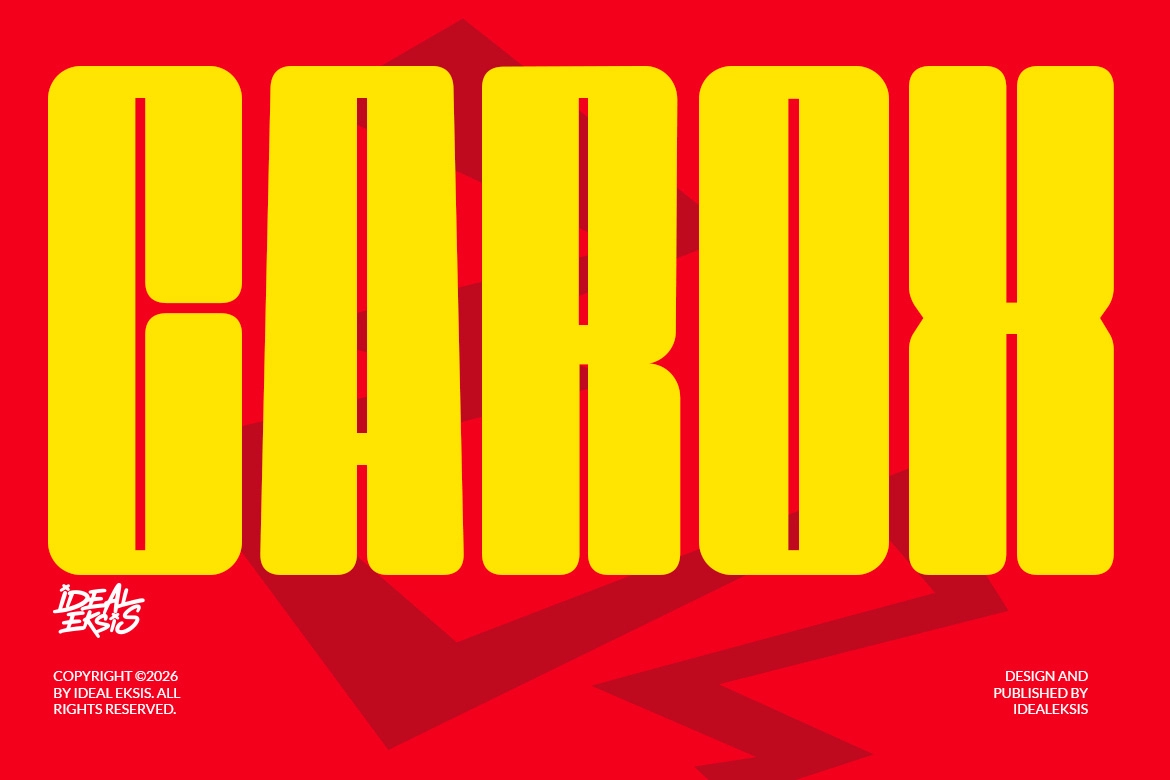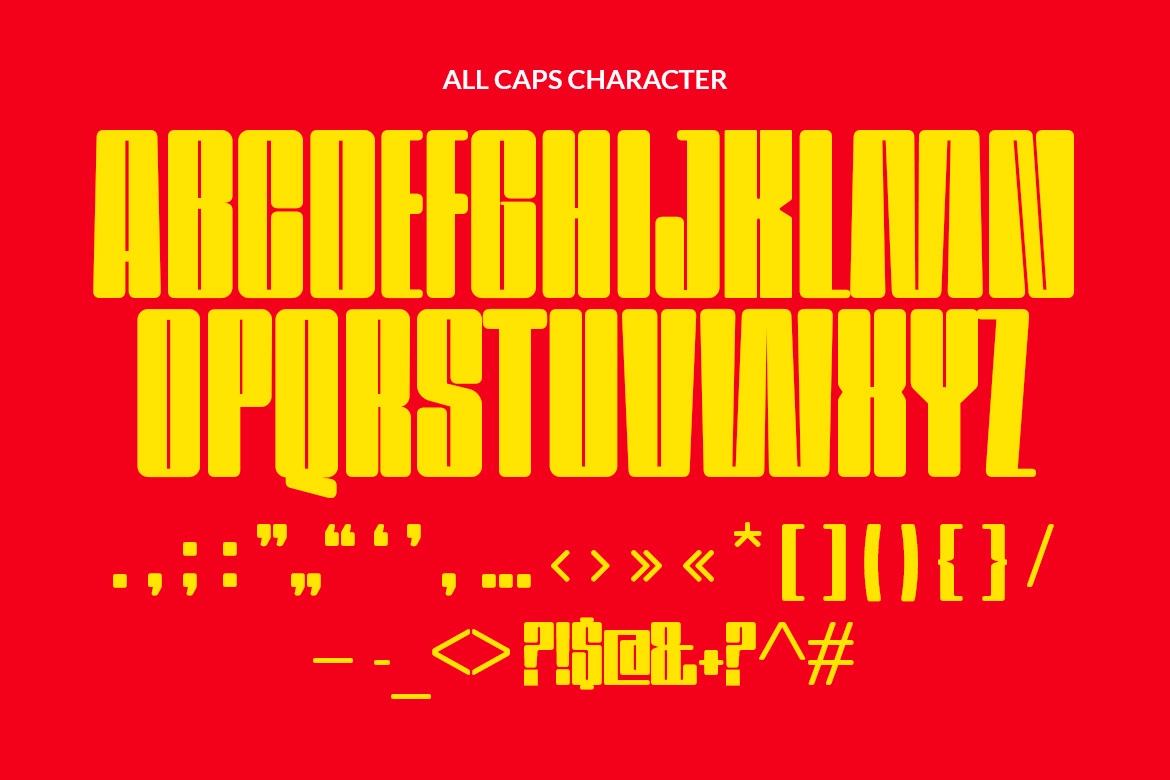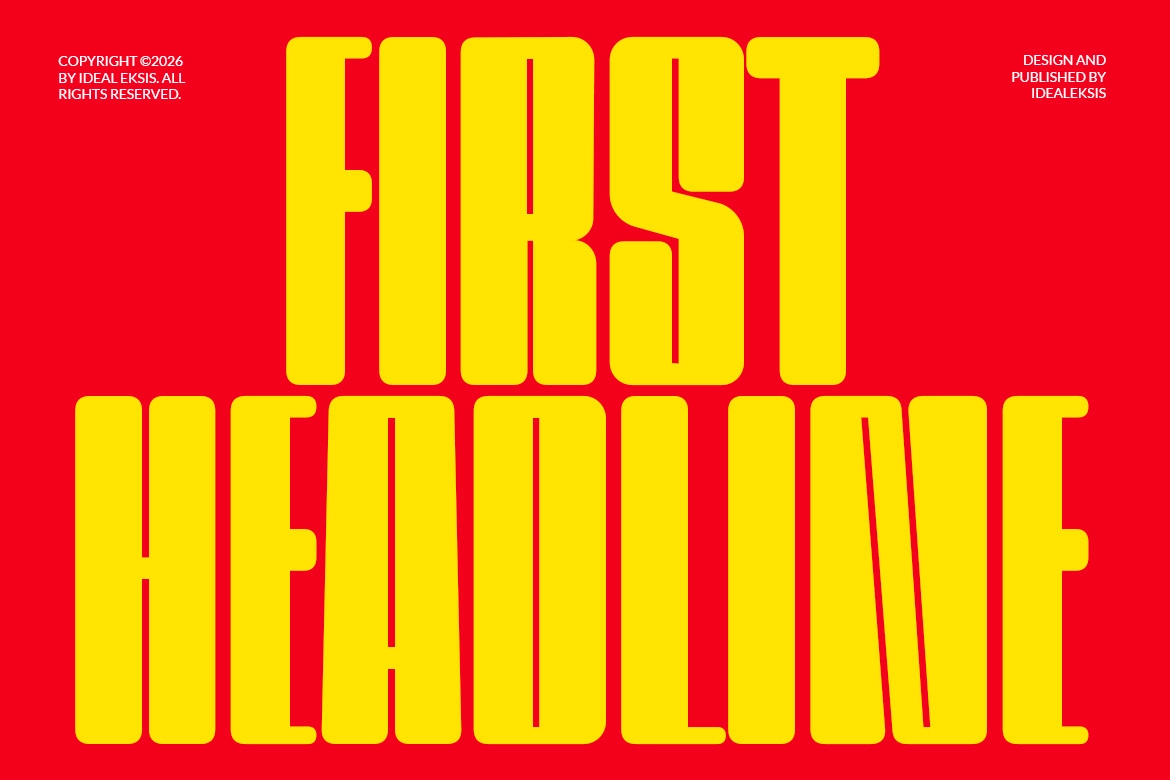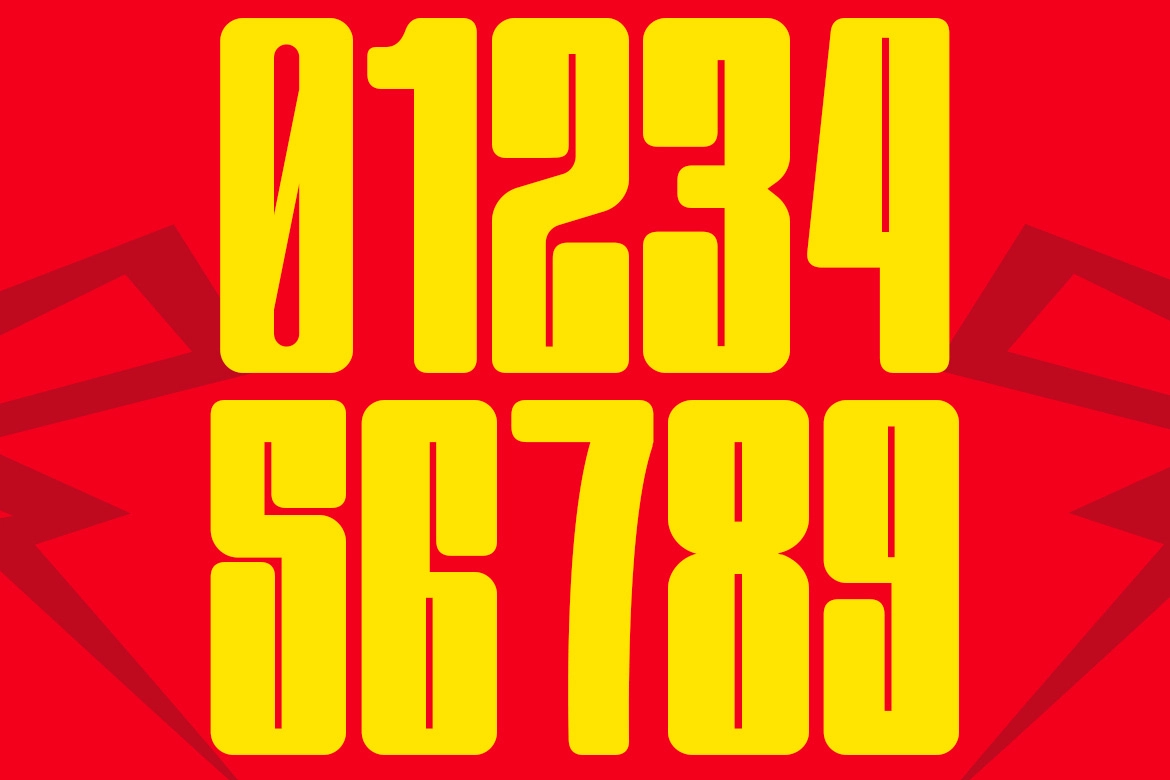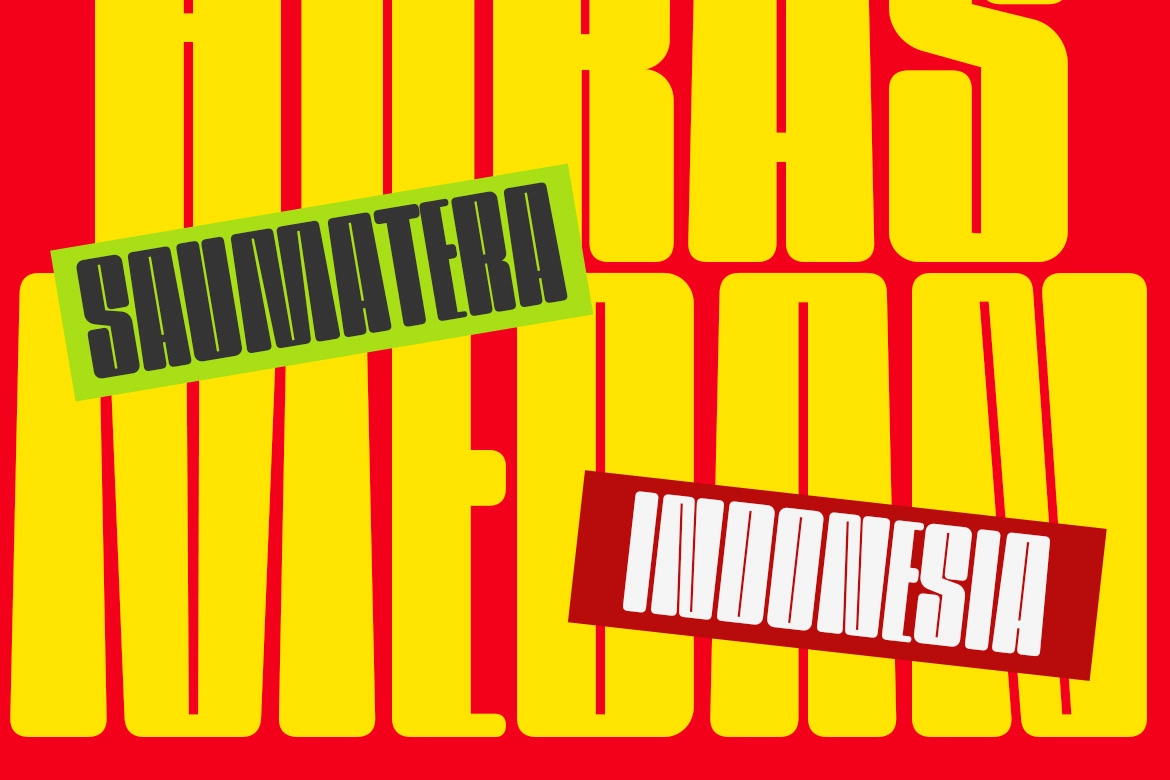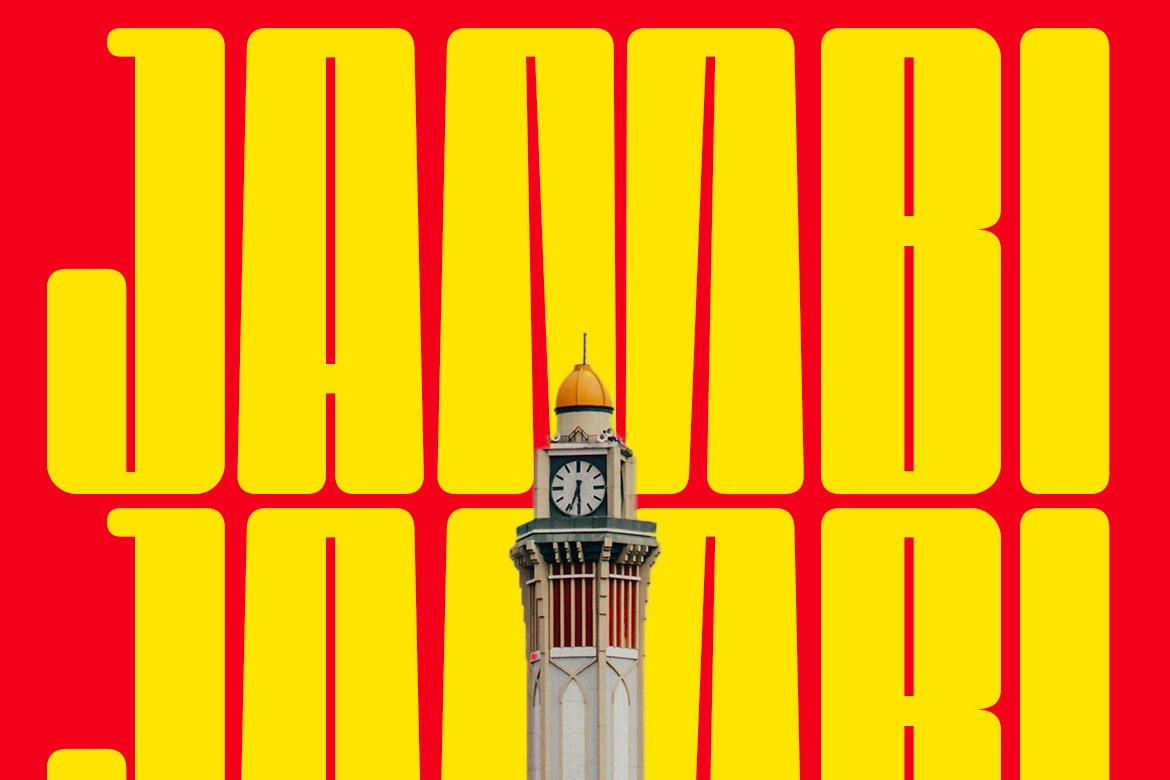
Carox - Rounded Heavy Sans Serif Font
Carox
Carox – Rounded Heavy Sans Serif Font is a bold and compact typeface built for maximum visual impact. Featuring an ultra-condensed structure with thick strokes and softened corners, this rounded heavy sans serif font delivers a powerful presence while maintaining a modern and approachable feel.
Designed for high-energy layouts, Carox excels in projects that demand attention—whether it’s sports branding, esports visuals, or bold promotional graphics. Its dense letterforms allow you to create strong, space-efficient headlines that stand out instantly across both digital and print media.
- All Caps Uppercase
- Punctuation